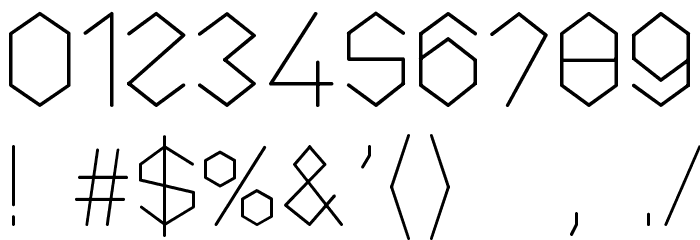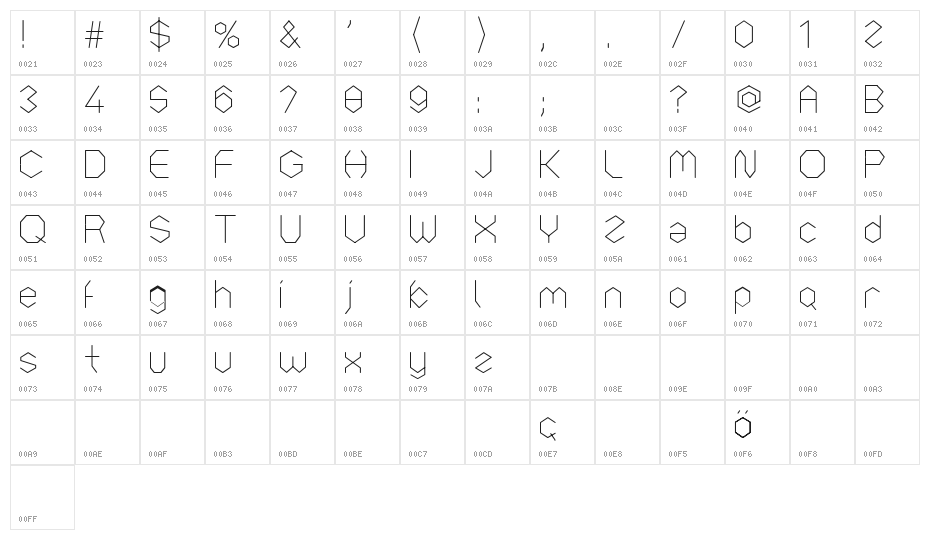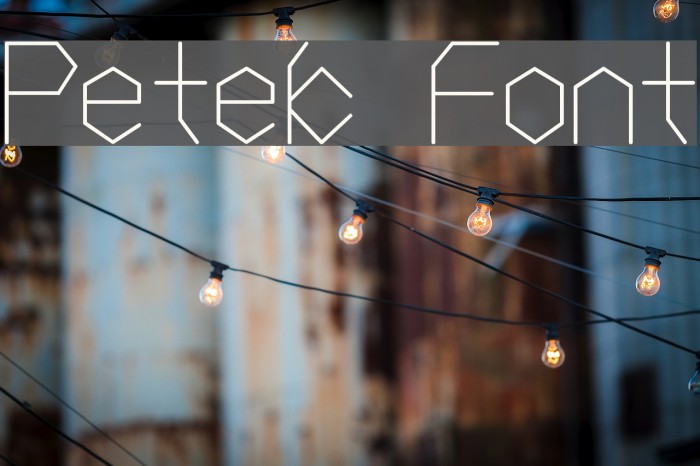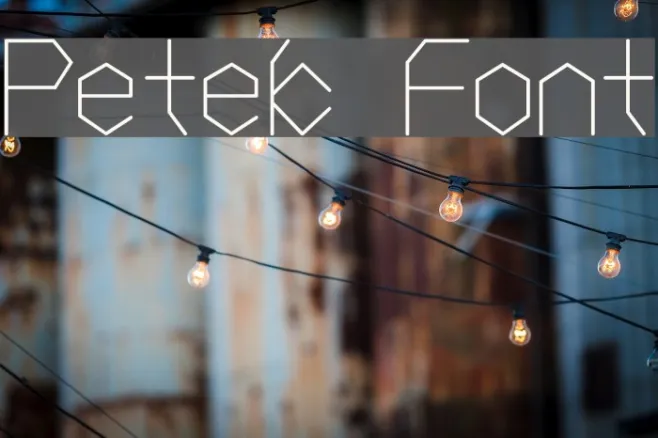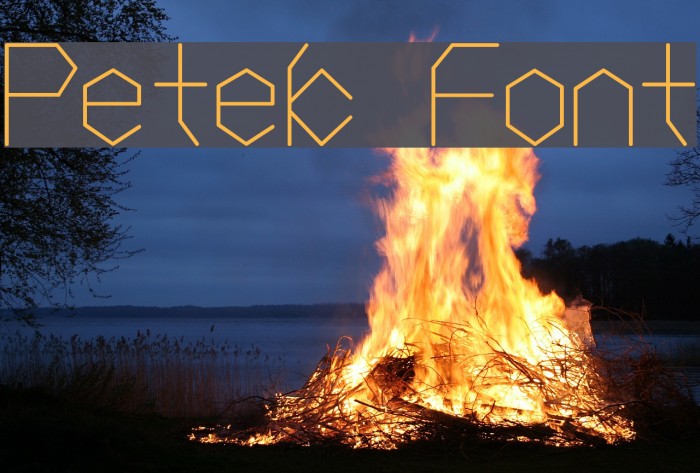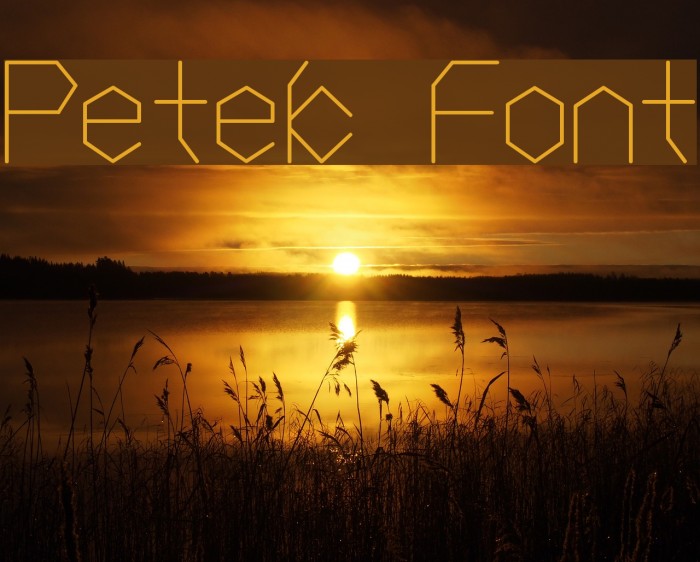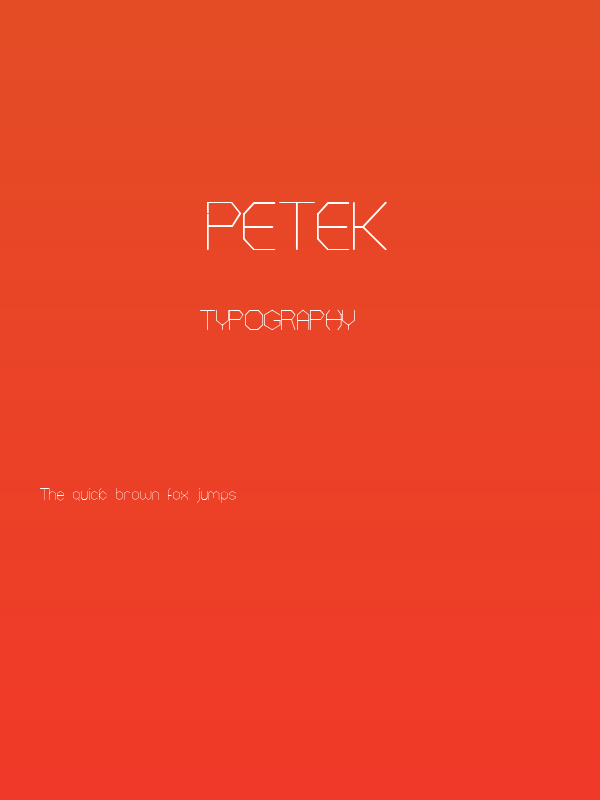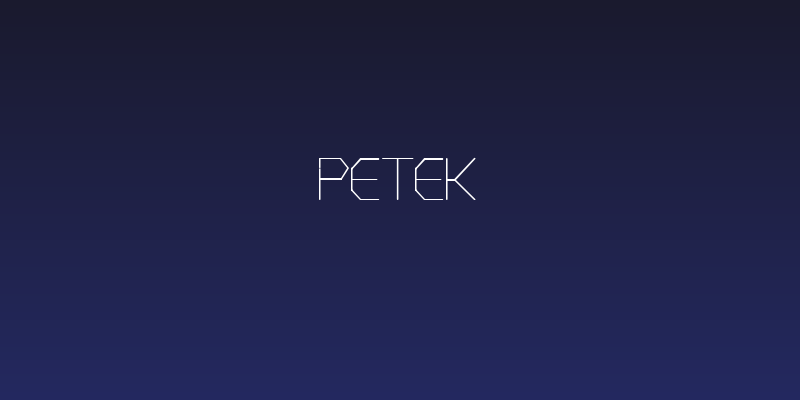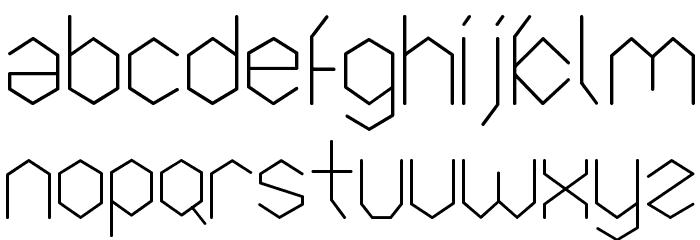
Petek Font
Petek Description
This font features a geometric and angular design, characterized by its sharp, straight lines and distinct corners. Each character is crafted with a consistent stroke width, giving it a uniform appearance. The uppercase letters exhibit a bold and structured form, while the lowercase letters maintain a similar geometric style, offering a cohesive look throughout. Numbers and special characters follow the same design principles, ensuring a harmonious visual experience. The font's unique style makes it stand out, ideal for projects that require a modern and edgy aesthetic.
| Proposed Projects | Ideal for modern branding, tech-related designs, futuristic posters, and digital artwork. |